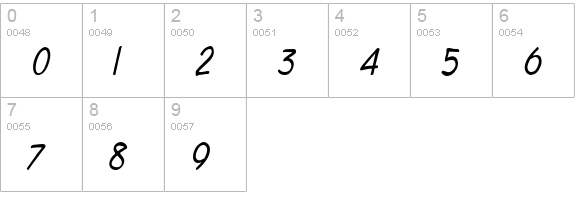
CopybookCondensed Italic Font Details
CopybookCondensed Italic is a distinctive, italic variant in the CopybookCondensed typeface family \xE2\x80\x94 well suited to design and typography projects.
CopybookCondensed Italic is a stylish and elegant font that exudes sophistication and class. Its sleek and slanted design adds a touch of modernity to any project while maintaining a classic feel. The italicized version of the font gives it a sense of movement and flair, making it perfect for adding emphasis and style to your text. This versatile font is ideal for a wide range of design projects, from invitations and greeting cards to branding materials and advertisements. Its condensed style allows you to fit more text in a limited space without sacrificing readability or aesthetic appeal. Best of all, CopybookCondensed Italic is available for free download at FontsMarket.com. Whether you're a graphic designer looking to add a new font to your collection or a business owner in need of a fresh look for your branding materials, this font is a great choice. Download CopybookCondensed Italic today and elevate your designs with its timeless elegance and modern flair.